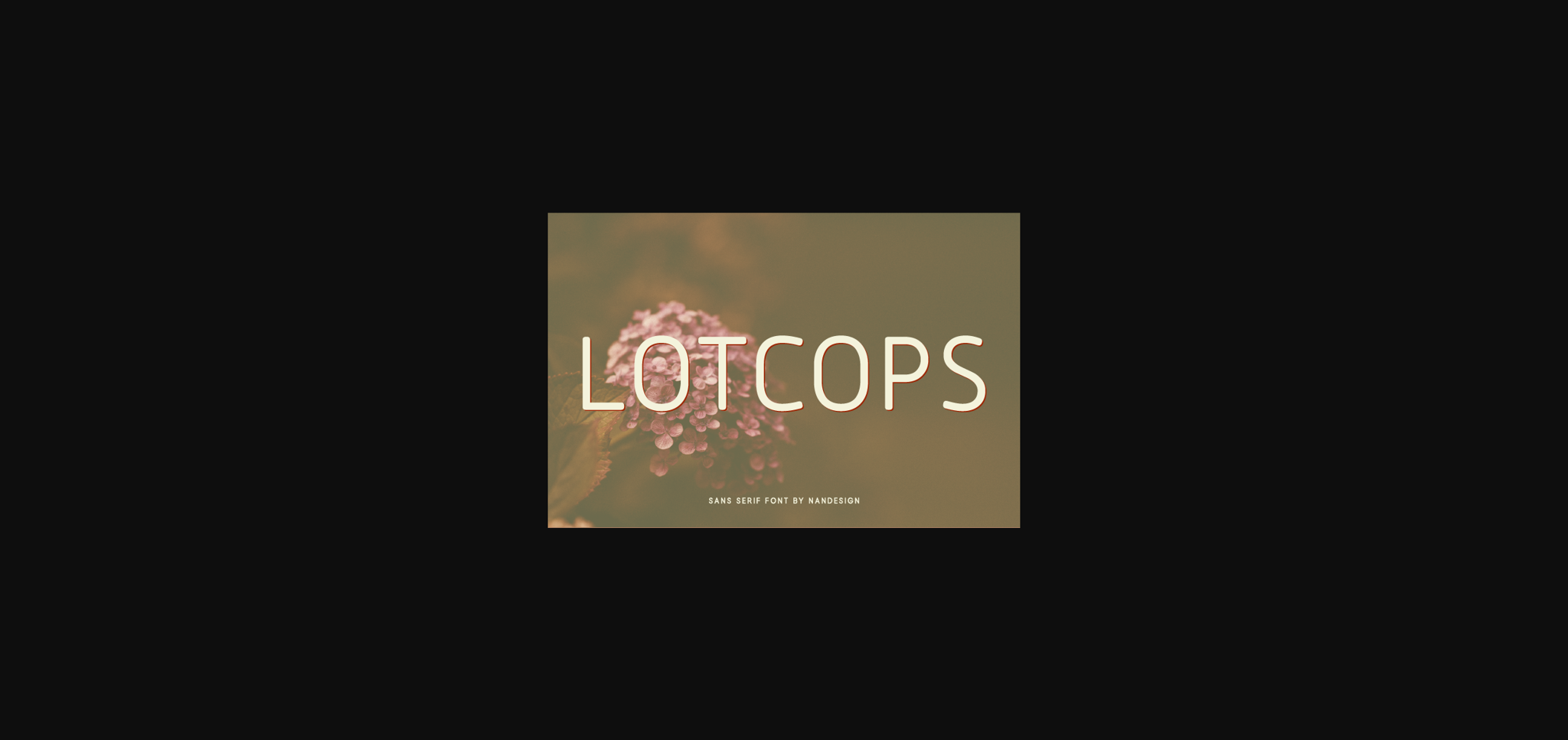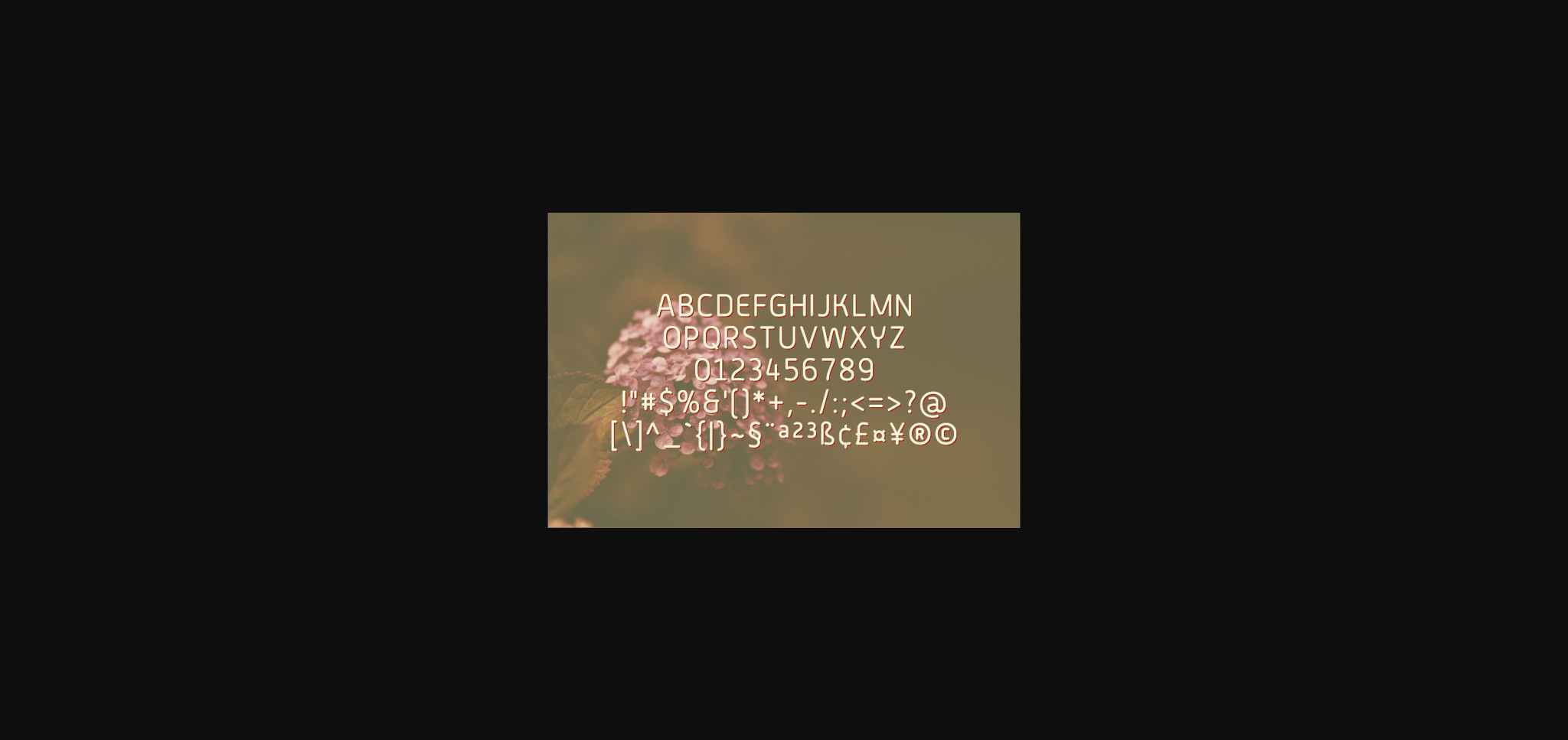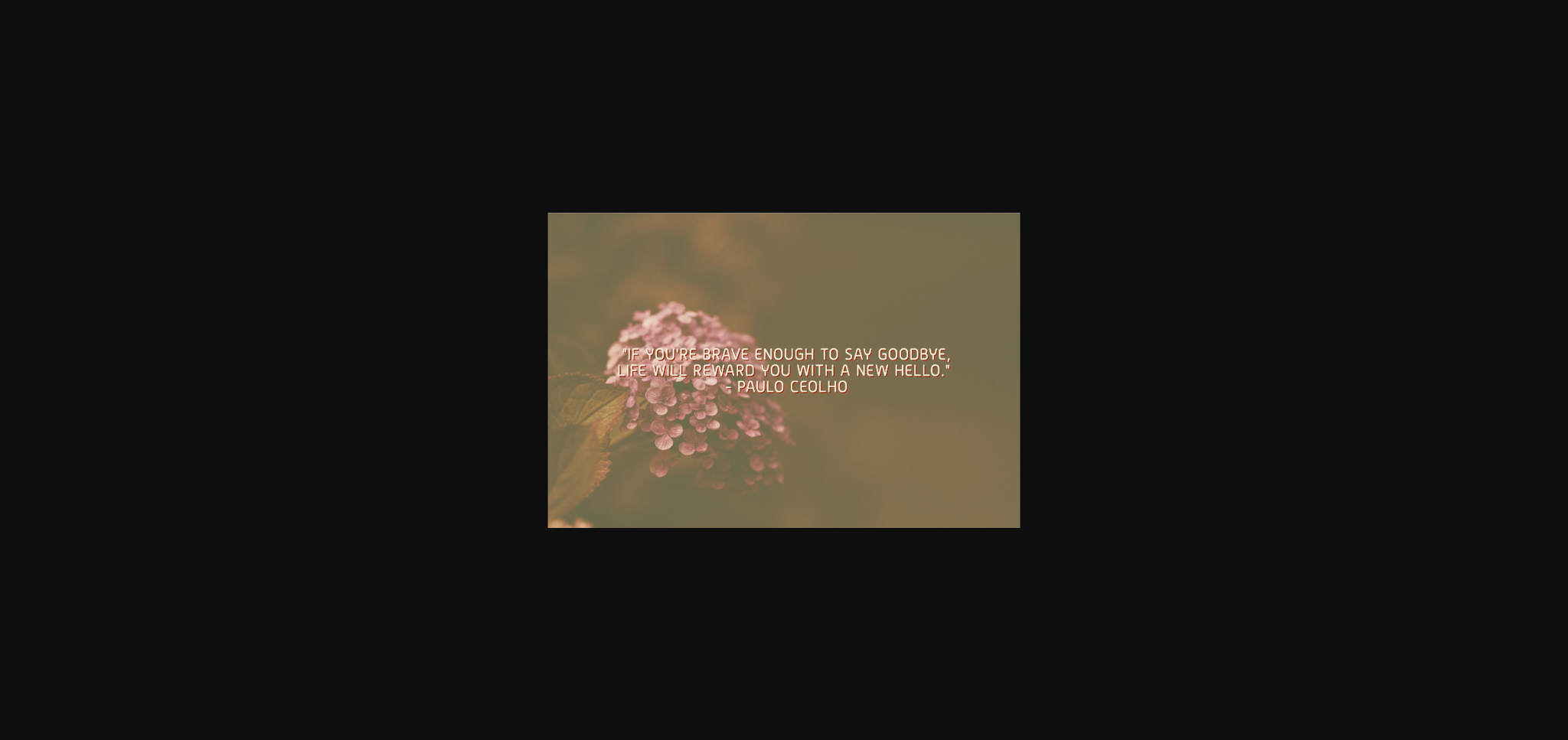
About Lotcops Font
Lotcops is a beautiful and simple sans serif font, designed to elevate every project you’re working on.
Use it and create headings, invitations, logos, and so much more!